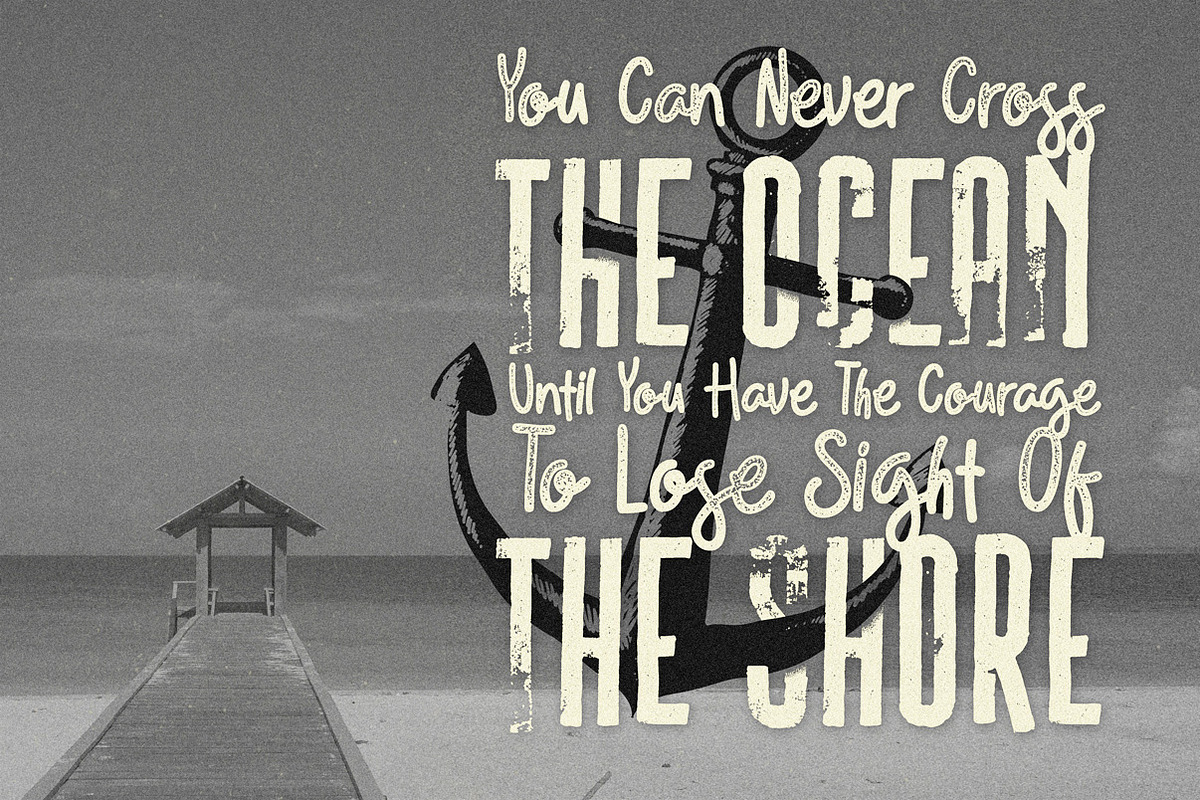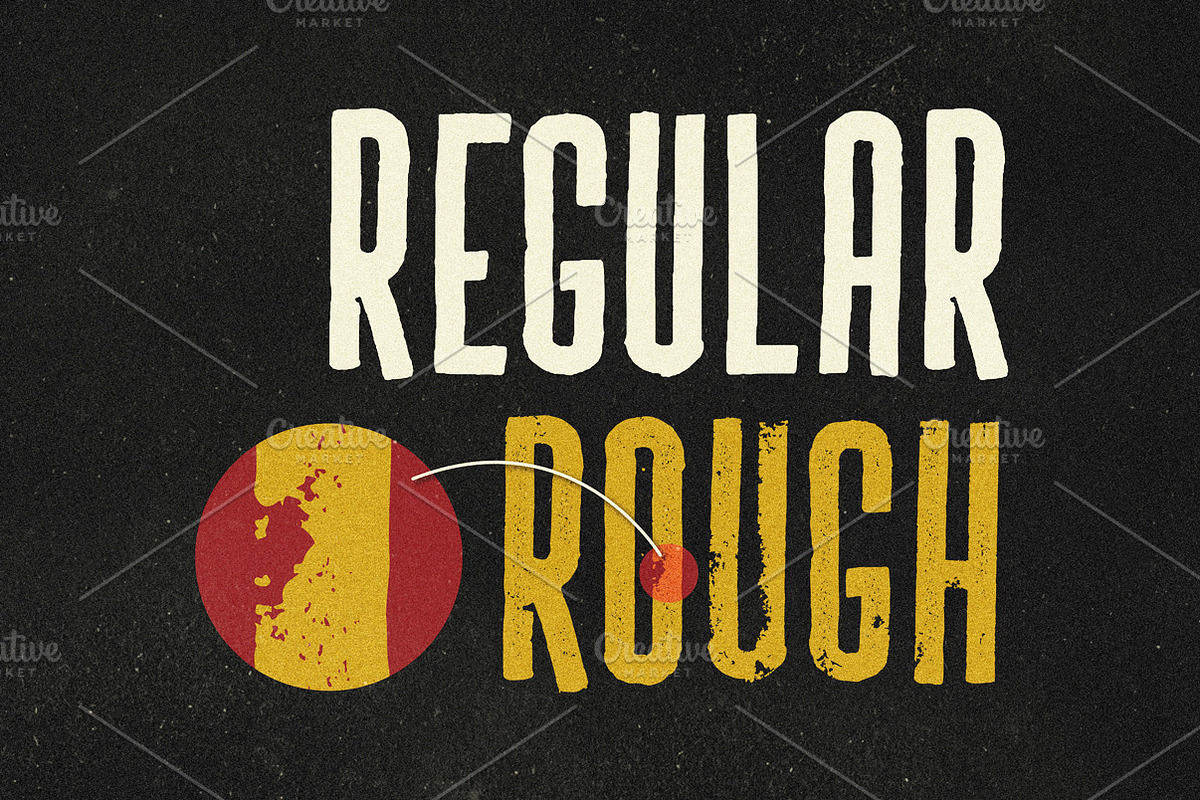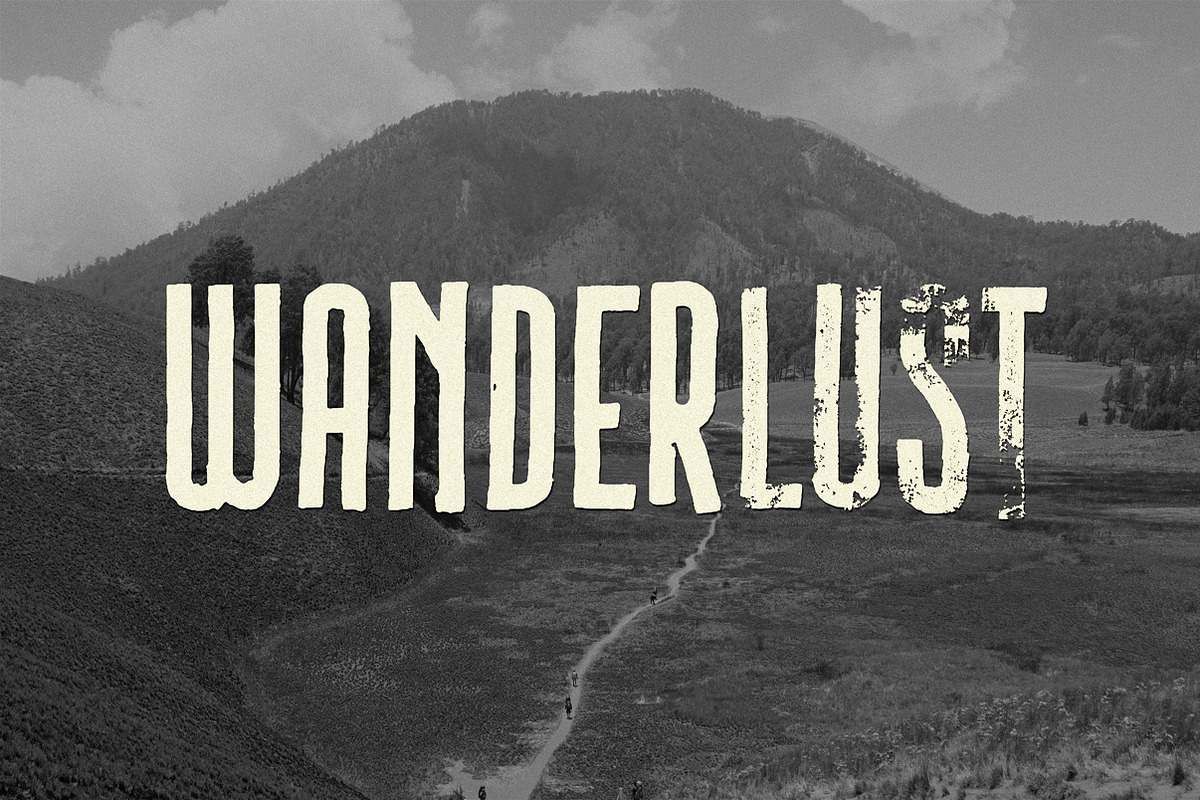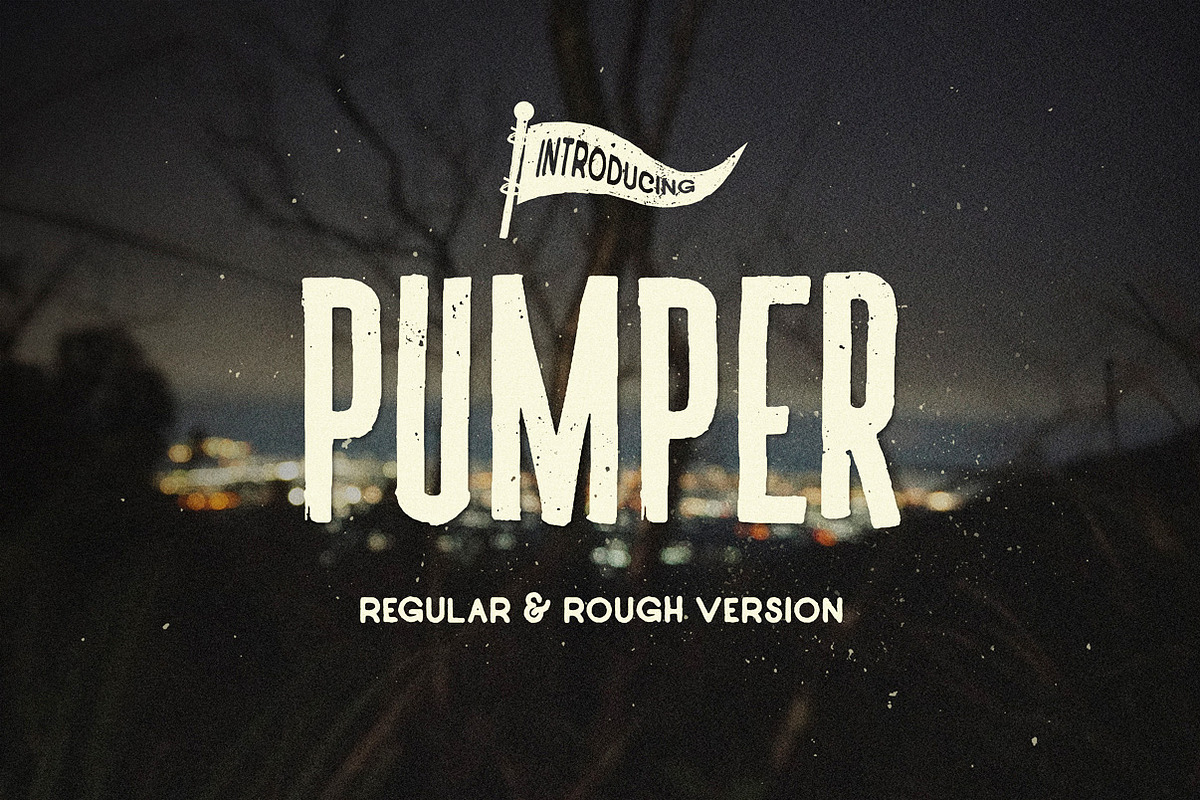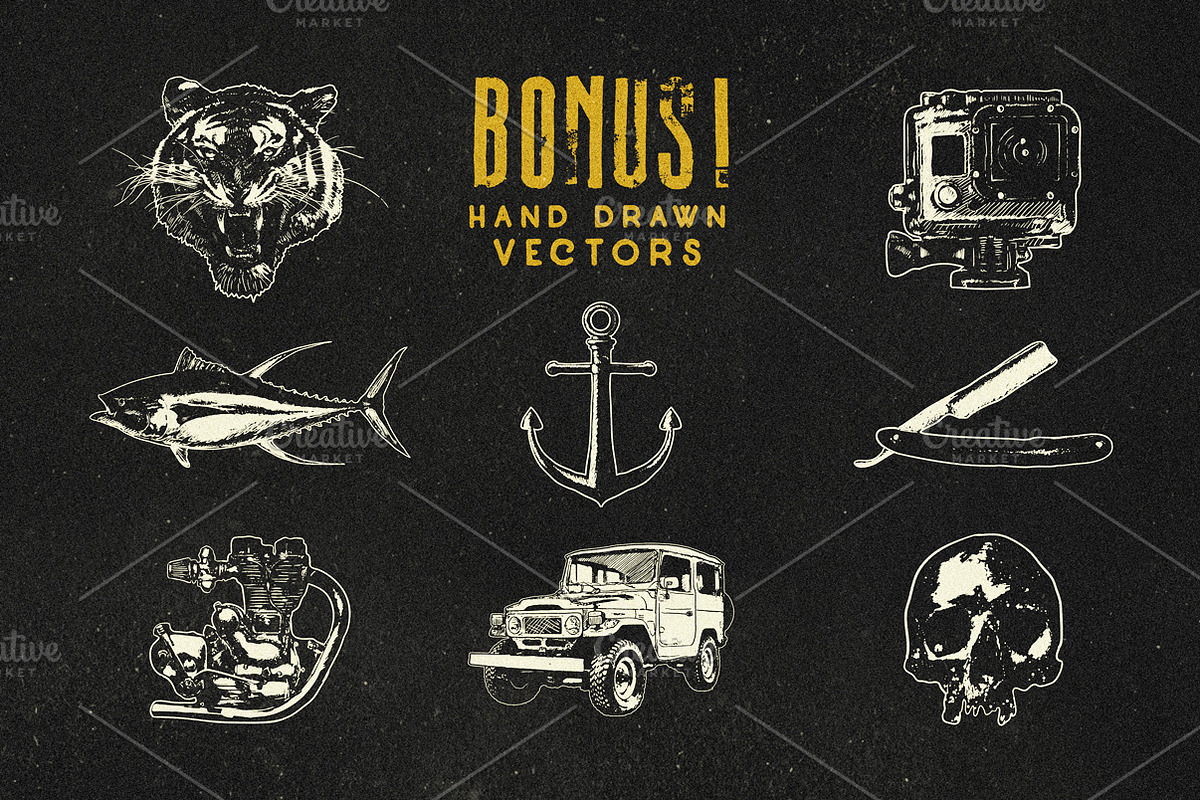
Pumper Typeface
Pumper Typeface by Aksa & Nusa Co. is a font selected for branding, posters, packaging, typography.
- It comes with a complete set of : Uppercase Lowercase Numbers Punctuations and of course, Multilingual Support Perfect for inspirational quo
Why Pumper Typeface is worth a look
Pumper Typeface by Aksa & Nusa Co. fits naturally into Branding, posters, packaging, typography.